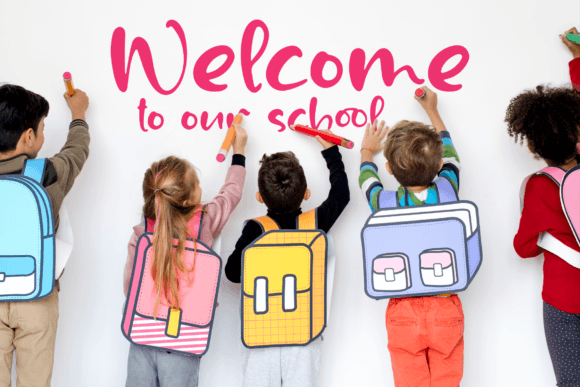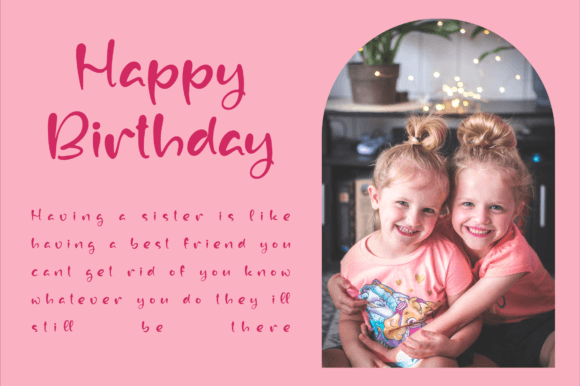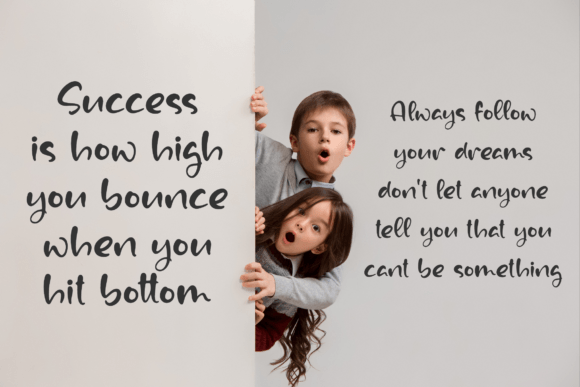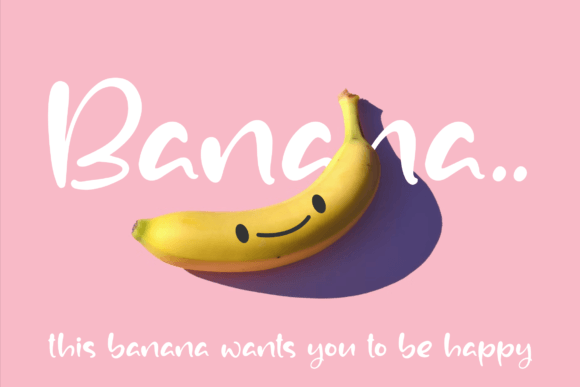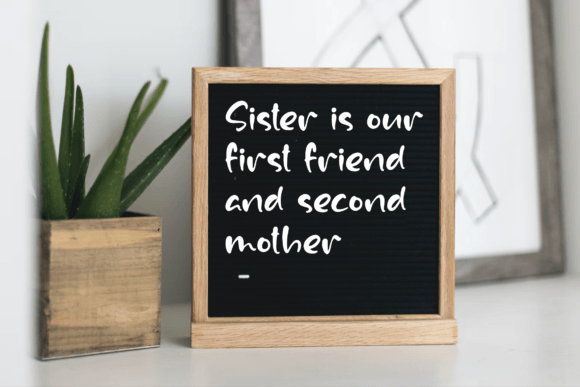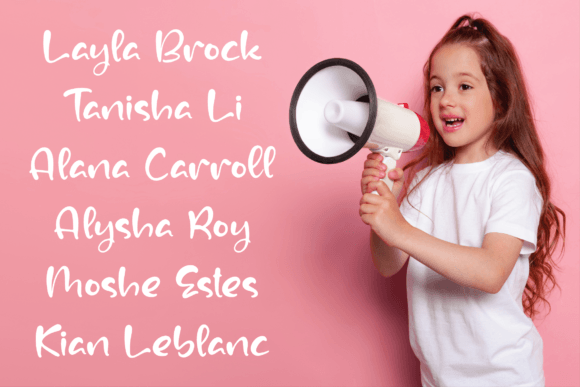
Discover the Joy of Abstaine Cartoon Font
Do you remember the excitement of rummaging through a box of colorful markers as a child, eager to bring your imagination to life? The thrill of creating something entirely new and unique is a feeling that never truly fades, and it’s this same spark that Abstaine Cartoon Font embodies.
Designed to convey impeccable friendliness, this fun and playful handwritten font is perfect for a wide range of creative projects. Whether you’re crafting handmade cards, designing digital content, or putting together presentations, Abstaine Cartoon Font has the potential to become your go-to choice for any occasion.
As a designer, you know the value of a versatile font that can bring a touch of personality to your work. Abstaine Cartoon Font is more than just a pretty face – it’s a valuable tool that can help you connect with your audience and leave a lasting impression.
- Unique Characteristics: Hand-drawn, cartoonish style with bold lines and vibrant colors, ideal for children’s books, comics, and other creative projects
Abstaine Cartoon Font Review
Overall, I think Abstaine Cartoon Font is a charming and playful typeface. ✨ It’s perfect for those looking to add a touch of whimsy to their designs. The font’s rounded edges and bubbly feel make it great for creating eye-catching graphics and illustrations.
- Unique and quirky design that sets it apart from more traditional fonts.
- Easy to read and understand, even at small font sizes.
- Works well for headings, titles, and short blocks of text.
- May not be suitable for formal or professional designs, as it can come across as too childish.
- Not ideal for large blocks of text, as the font’s playful nature can make it difficult to read in bulk.
- May not be as versatile as more traditional fonts, in terms of pairing and styling.
- ⚠️ May not be compatible with all operating systems or devices, due to its quirky design.
Abstaine Cartoon Font is a great choice for those looking to add a touch of fun and personality to their designs. While it may have some limitations, it’s perfect for creating eye-catching graphics, illustrations, and titles. Just be sure to use it wisely and in the right context to get the most out of it.
- Use the font for playful and creative designs.
- Combine the font with bold colors and patterns for a fun and eye-catching look.
Abstaine Cartoon Font is commonly used for:
- Children’s books and educational materials.
- Party invitations and decorations.